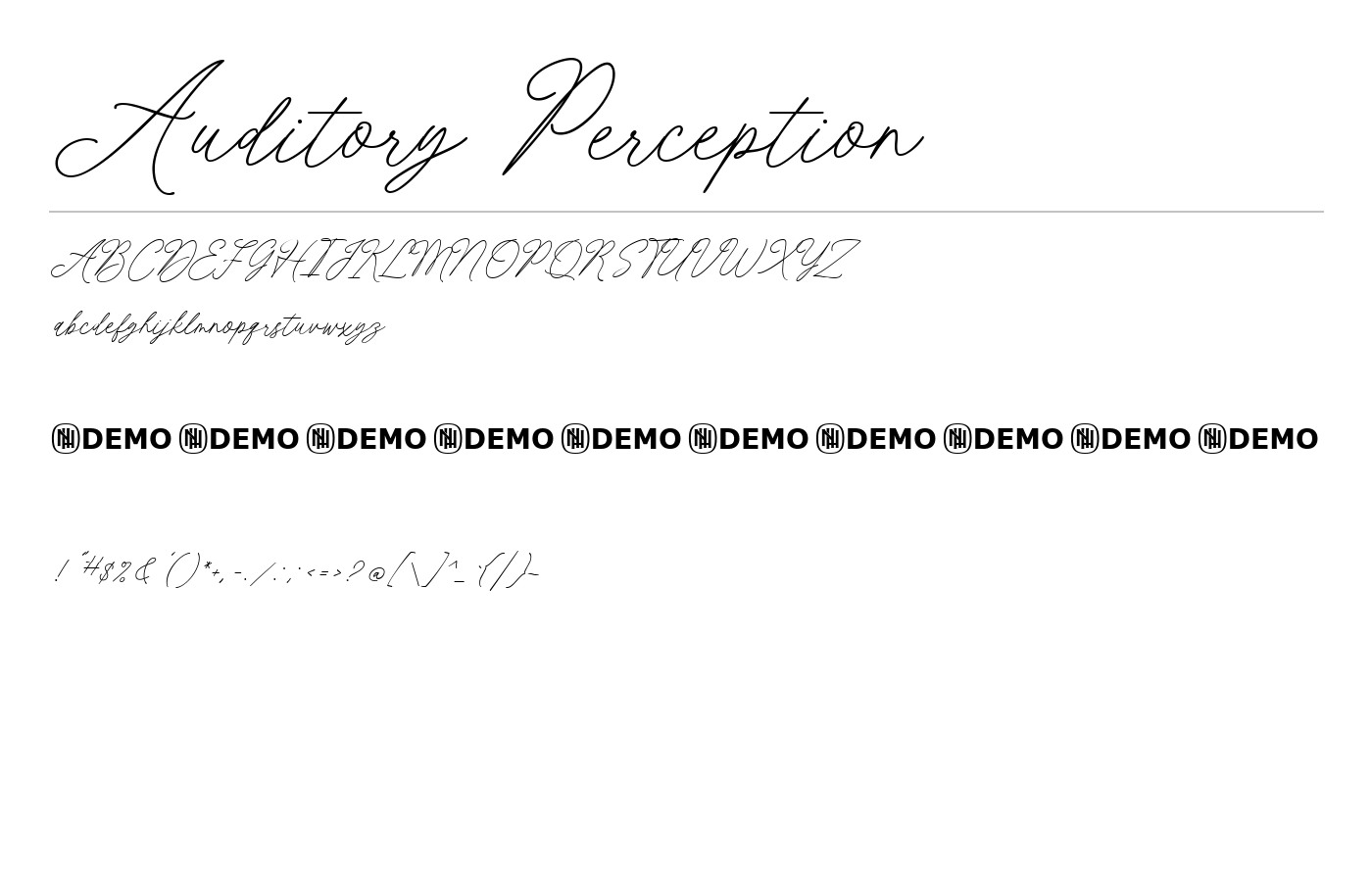
Auditory Perception is a delicate, elegant script font with fine, flowing strokes that capture a sense of grace and sophistication. Its slender, slightly slanted letterforms convey a handwritten, personal touch ideal for luxury branding, wedding invitations, or refined editorial projects. This font’s light weight and airy spacing make it perfect for stylish headlines or decorative accents where a soft, elegant mood is desired.
Auditory Perception Font
About Auditory Perception Font
| Font family | Auditory Perception Font |
| Designer | Ali Hamidi |